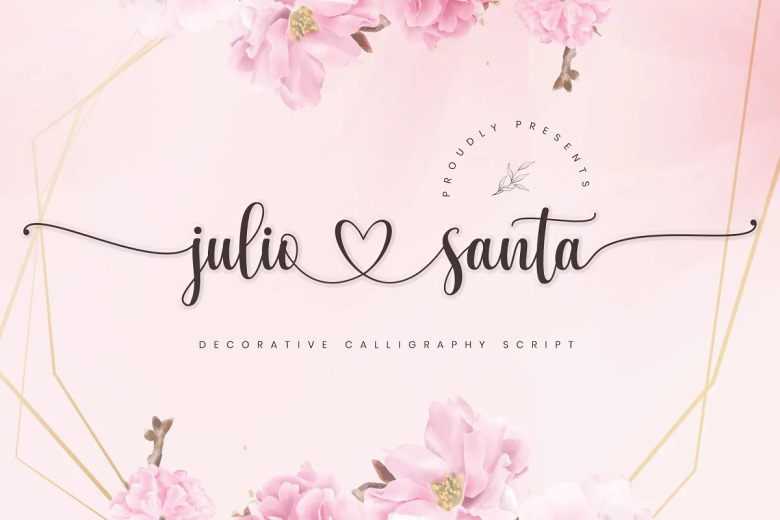
Julio Santa Font
Julio Santa is a flowy, handwritten script with ornamental details. Lovely for wedding invitation, craft design, any project such as the romantic and feminine style. this font is made for you if you are among ones who looks a way to romantic, chic and modern Design.
Julio Santa Calligraphy Script Font